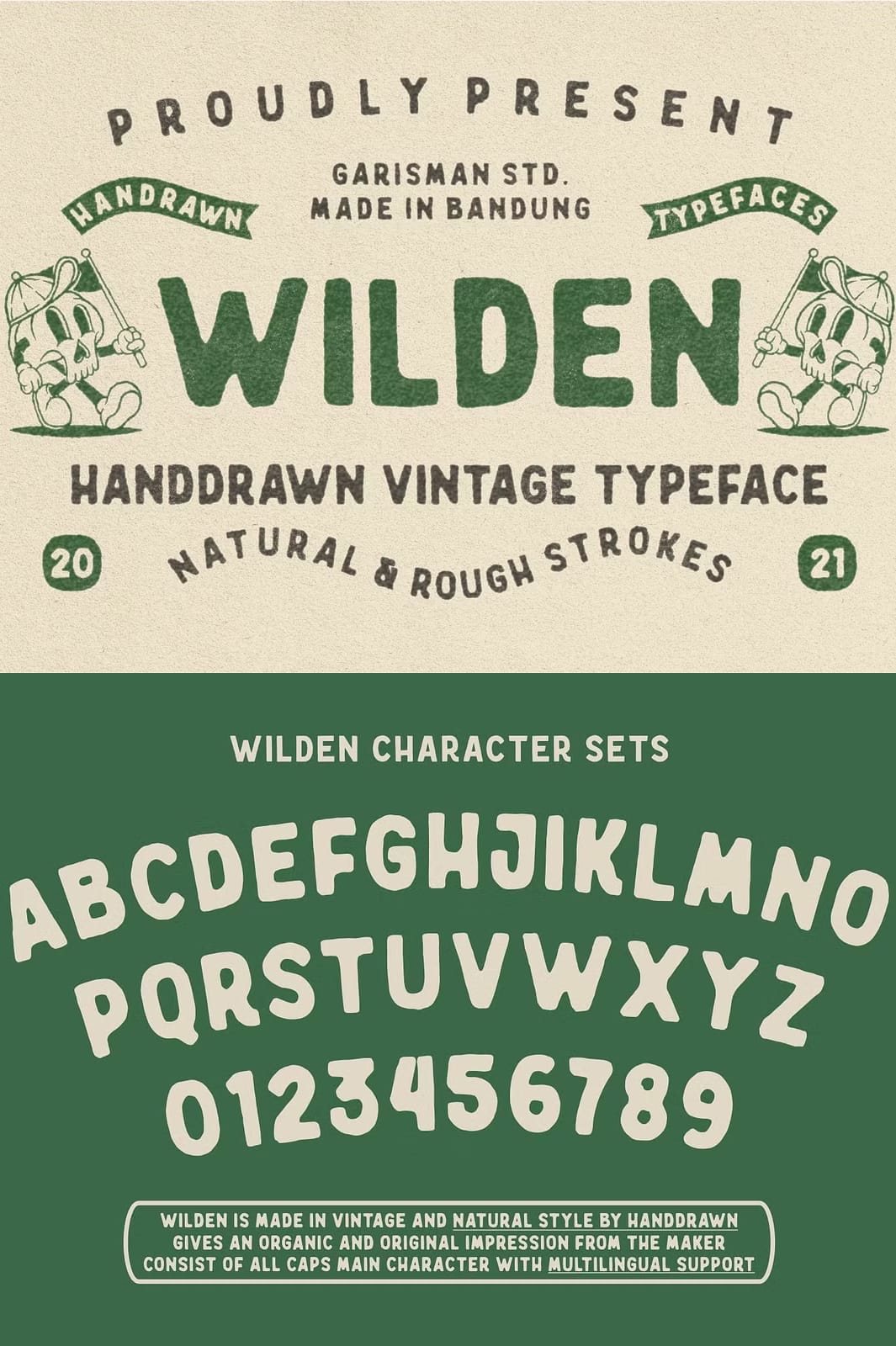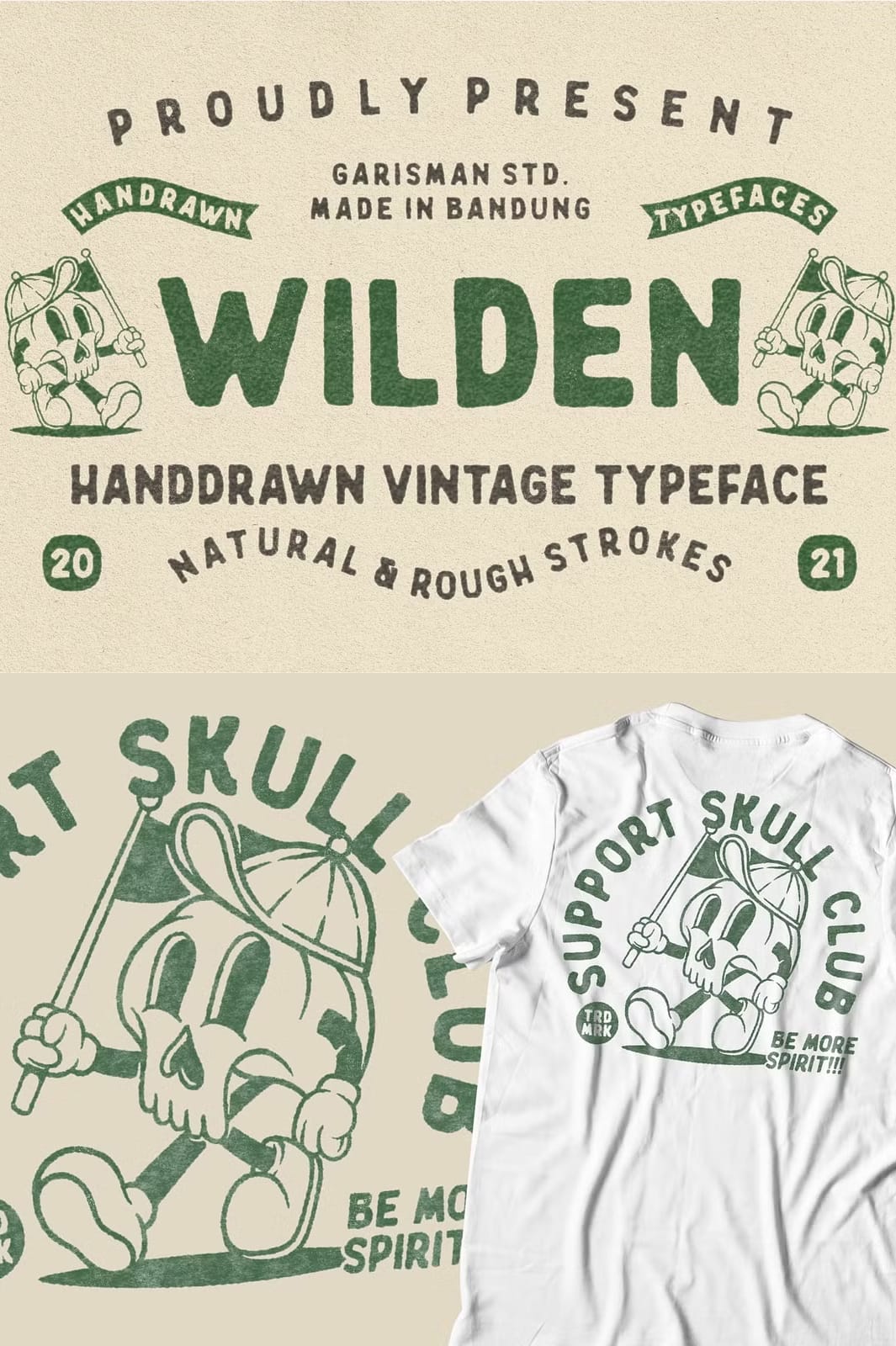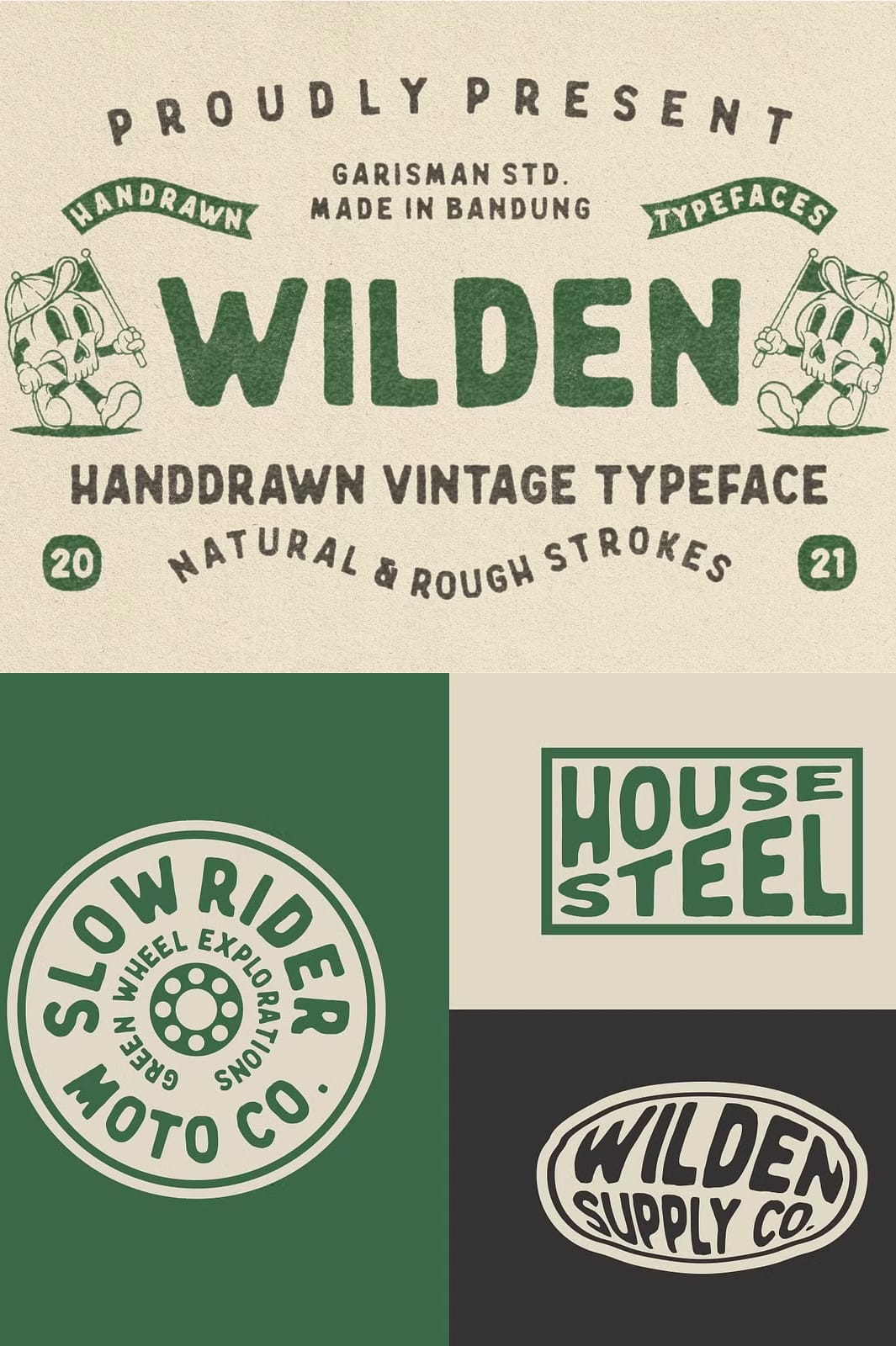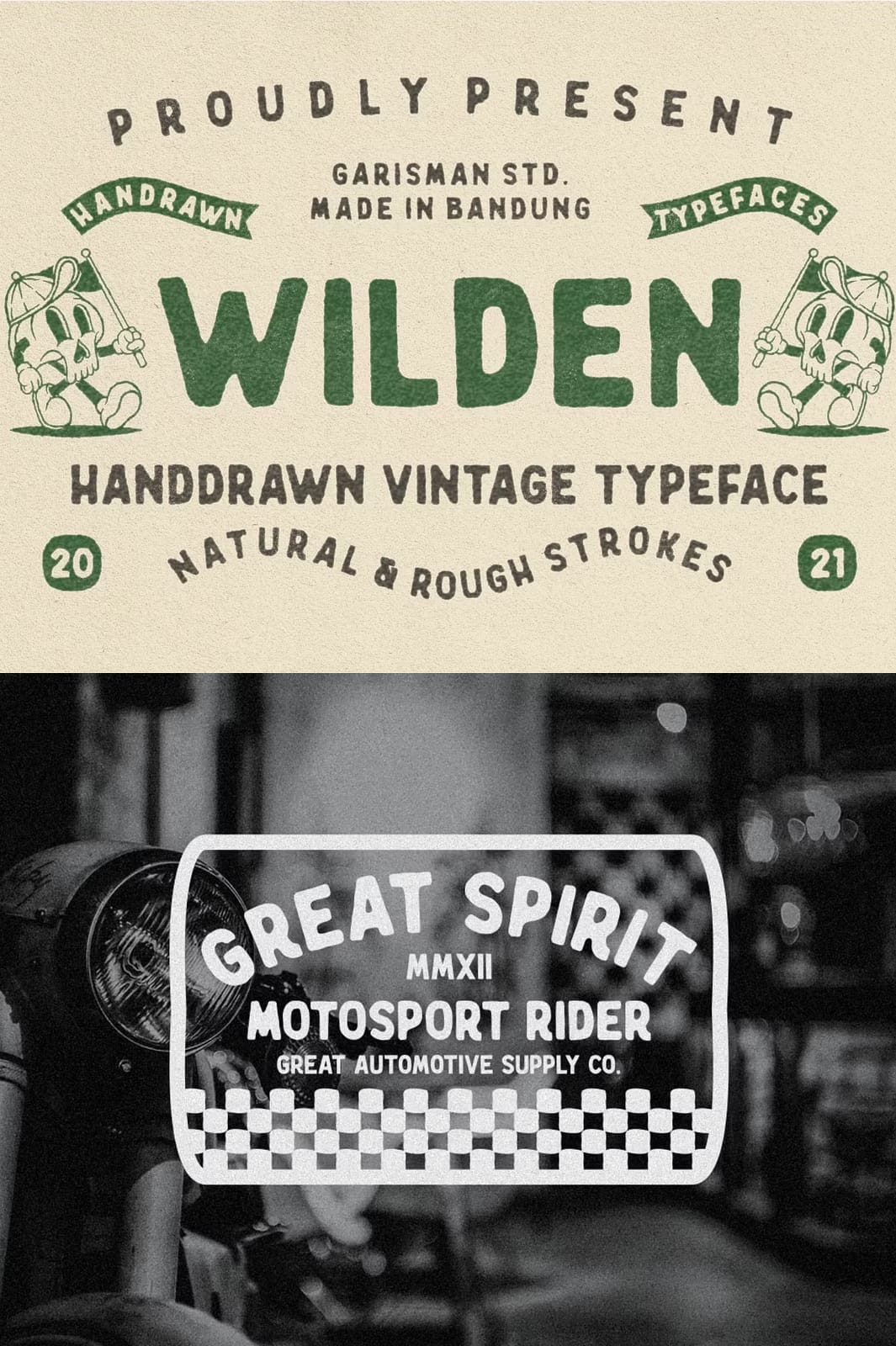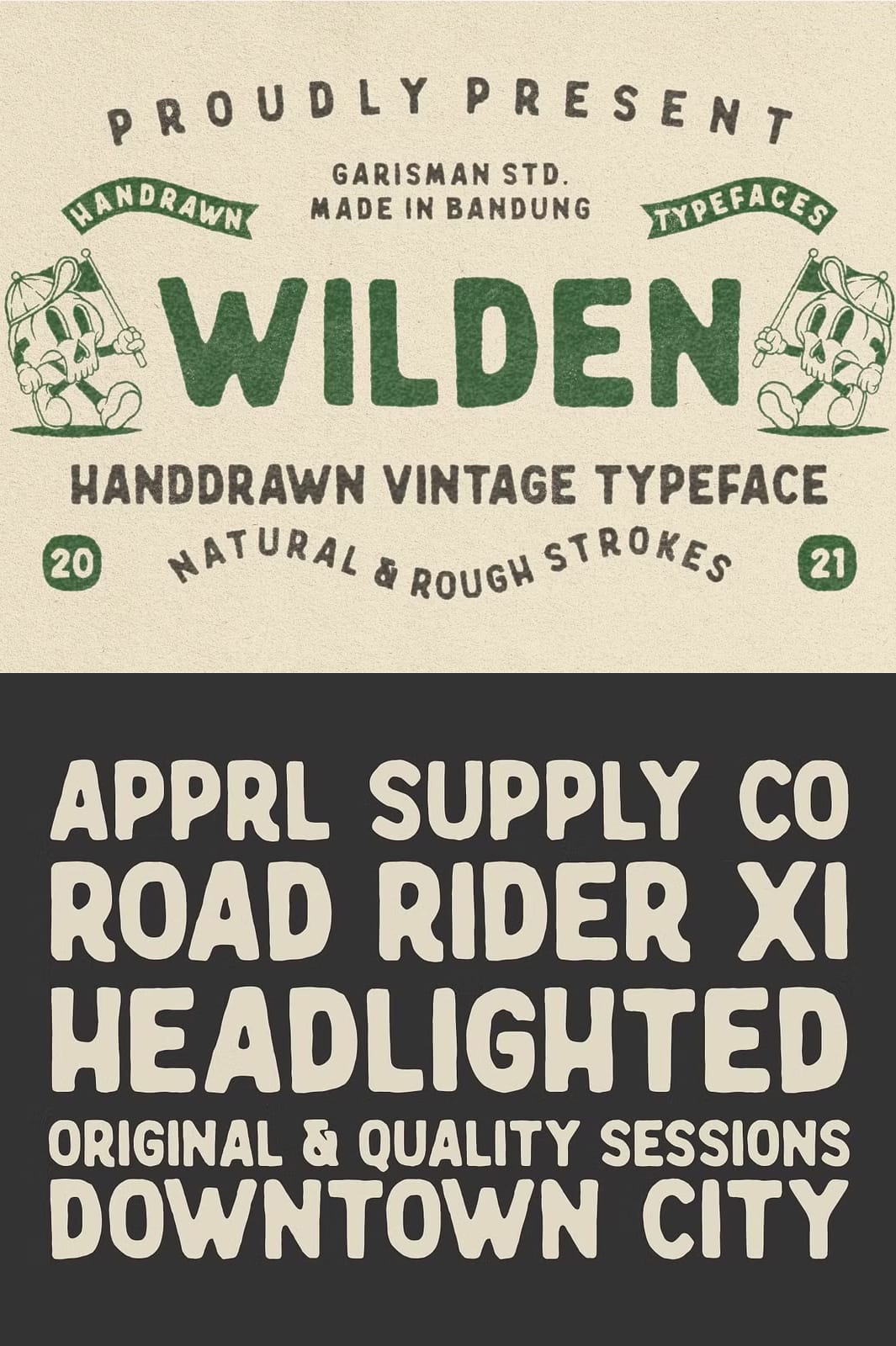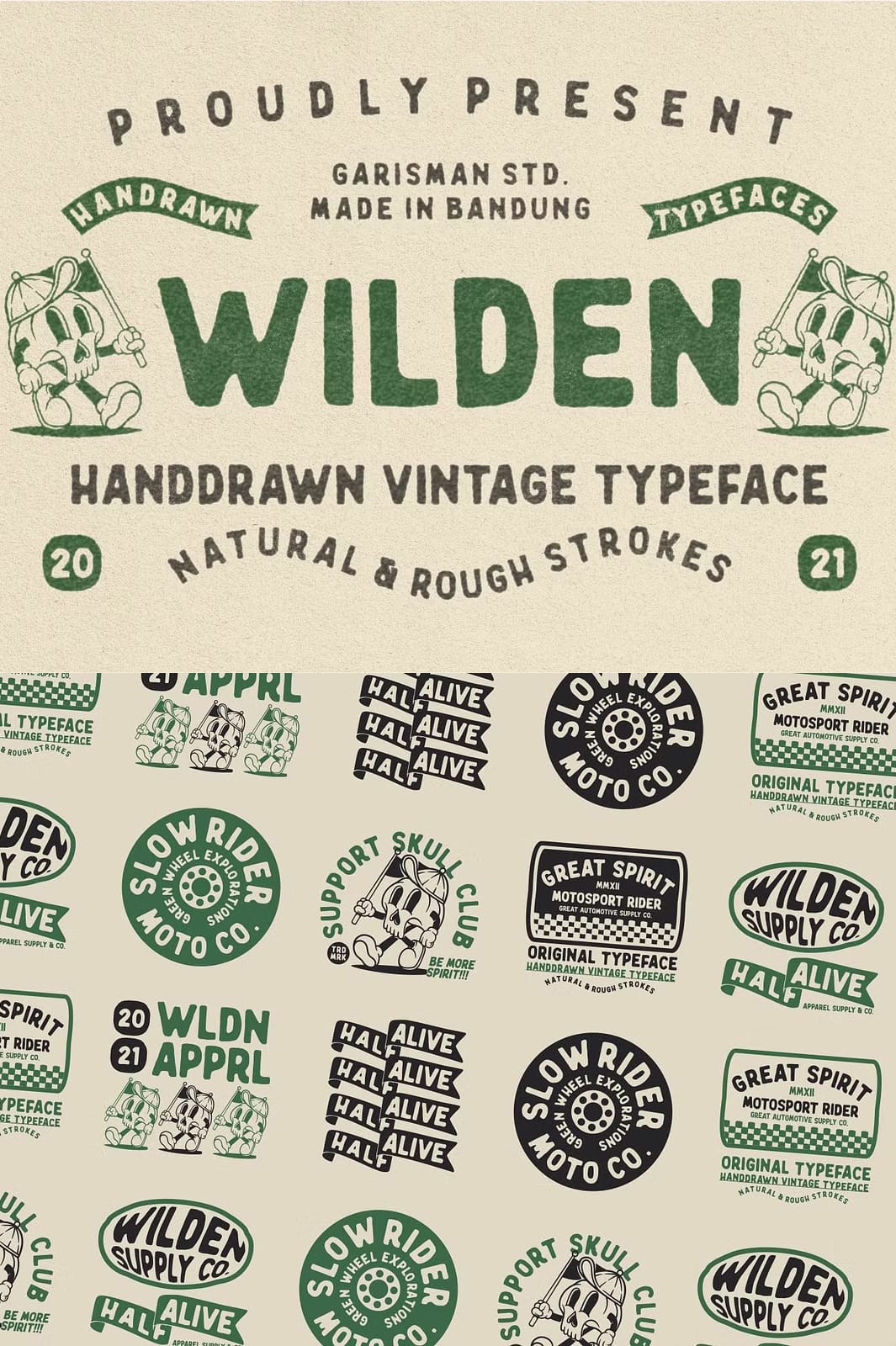
Wilden – Handdrawn Vintage Typeface
Wilden is a meticulously crafted handdrawn vintage typeface designed to evoke the charm and authenticity of classic, old-style craftsmanship. Inspired by traditional vintage display fonts, Wilden delivers a unique handmade feel that is perfect for designers seeking to infuse their projects with nostalgic warmth and personality. This typeface is ideal for a diverse range of graphic design applications, including branding materials, custom logos, t-shirts, print layouts, business cards, posters, photography projects, and creative quotes, providing an unmistakable vintage aesthetic that stands out.
Robust Character Set with Multilingual Support
Understanding the global reach of design projects, Wilden supports multilingual characters covering 14 languages including Afrikaans, Albanian, Danish, Dutch, English, Estonian, Finnish, French, Italian, Norwegian, Portuguese, Spanish, Swedish, and Zulu. This extensive language support ensures your designs are professional and versatile for a broad international audience. The font includes uppercase glyphs, numerals, punctuation marks, and additional special characters, making it suitable for both modern and vintage-themed typographic needs.
Perfect Typeface for Authentic Vintage Branding
The Wilden typeface is ideal for designers and creatives looking to evoke a sense of heritage, tradition, and handcrafted quality. It excels in logo design, branding identity, and print media where an authentic vintage touch is desired. Its distinctive handdrawn style brings a human element to graphic design, making any project feel personal and memorable. Whether you are designing apparel, marketing materials, or digital assets, Wilden empowers you to deliver impactful vintage-inspired aesthetics.